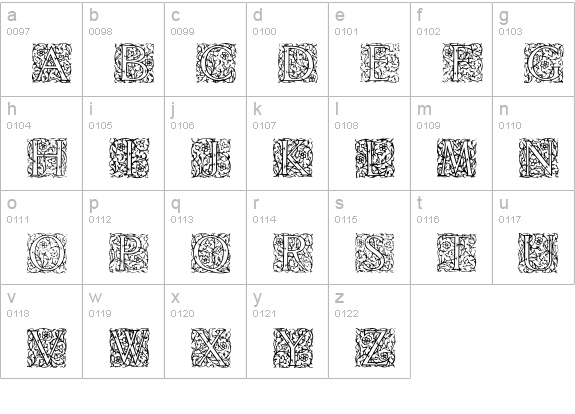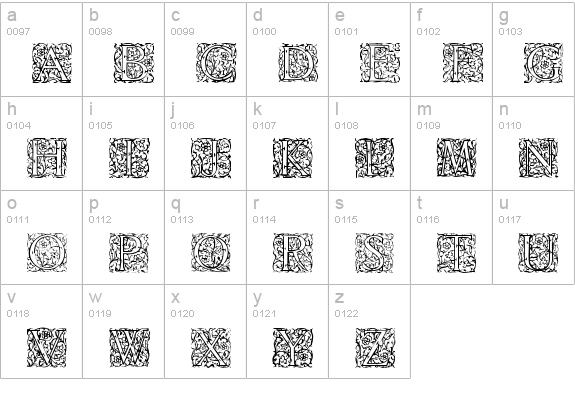
Burton Font Details
Burton font is a classic and elegant typeface that exudes sophistication and charm. With its clean lines and timeless appeal, this font is perfect for adding a touch of class to any project. Whether you are designing invitations, branding materials, or signage, Burton font will elevate your design to the next level. The best part? Burton font is completely free to download at FontsMarket.com. You can easily access this versatile font and use it for personal or commercial projects without any restrictions. So go ahead and give your designs a touch of elegance with Burton font, available for free download now!